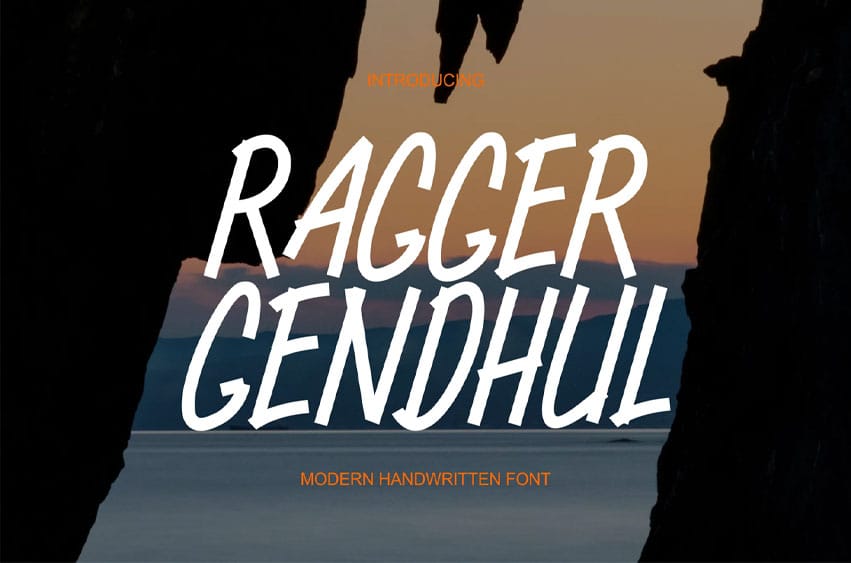
Ragger Gendhul Font Adventure Fonts modern font is a bold and authentic display font.
The font is suitable for any branding project like logo, t-shirt printing, esport, and many more. Outstanding in a wide range of contexts.